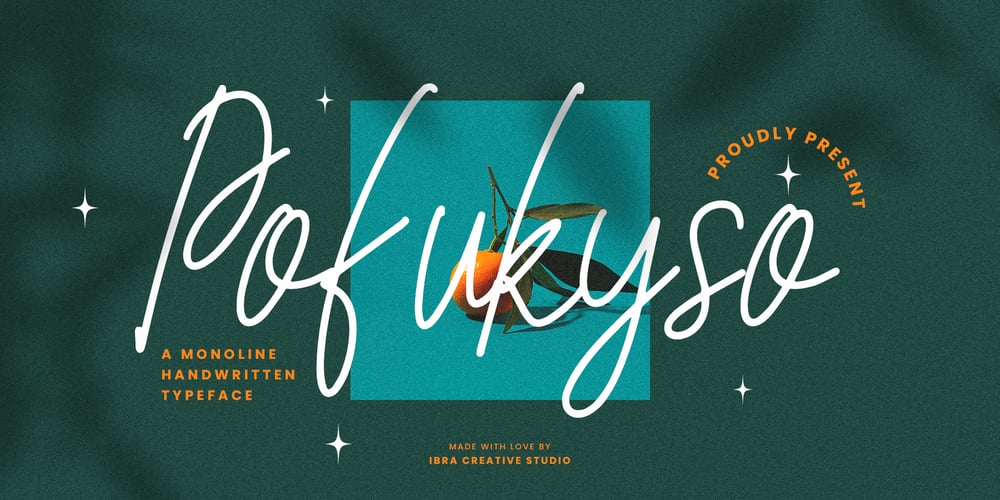
Pofukyso Font Family was designed by Roisatul Azizah and published by IbraCreative. Pofukyso contains 1 styles and family package options. Pofukyso, a captivating monoline handwritten typeface, seamlessly blends simplicity with a touch of whimsy. Its uniform strokes and consistent line weight create a harmonious and contemporary aesthetic, making it ideal for a range of design applications. Pofukyso’s graceful letterforms evoke a sense of fluidity and friendliness, adding a personal and approachable charm to any project. Whether used in branding, invitations, or editorial design, this monoline typeface effortlessly bridges the gap between casual and refined, offering a versatile and delightful solution for those seeking a handwritten touch with a modern twist.